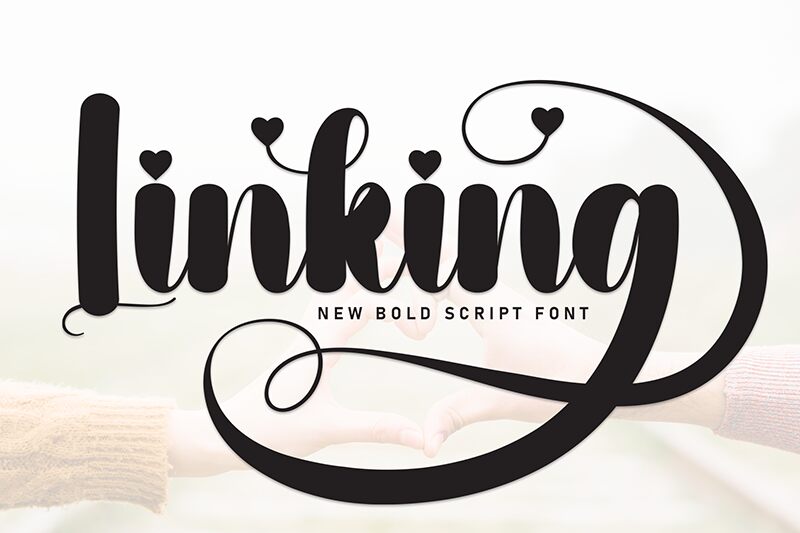
Linking
Linking font is a smooth brush free font by Scratchones. It features elegant, modern and decorative flowing lines that come together in a romantic and almost whimsical feel. Design process through it shall be simple and it is all yours to make fascinating projects geared towards your business of personal audience.